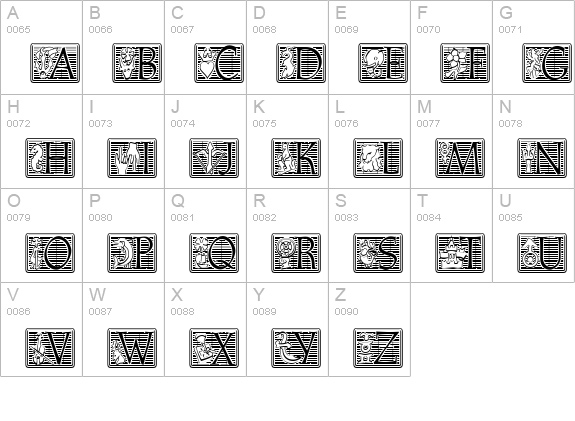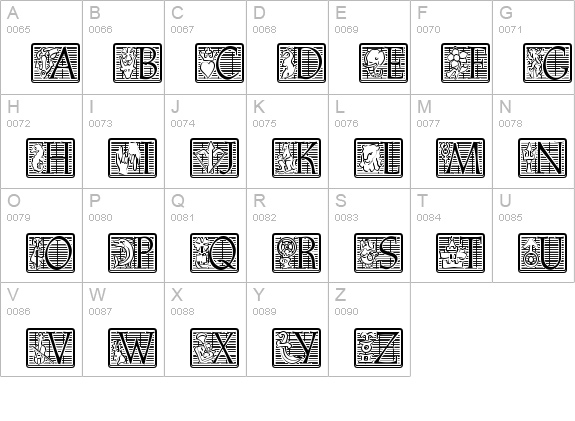
CgAthenaeumInitialPositive Font Details
CgAthenaeumInitialPositive font is a beautifully crafted typeface that exudes elegance and sophistication. With its intricate details and classic design, this font is sure to make a statement in any project. The ornate flourishes and decorative elements of CgAthenaeumInitialPositive font add a touch of luxury and charm to your text. What sets this font apart is not only its timeless appeal but also the fact that it is completely free to download. Yes, you read that right - CgAthenaeumInitialPositive font is freely available at FontsMarket.com for you to use in your personal and commercial projects. Whether you're creating wedding invitations, branding materials, or any other design project, this font is a perfect choice to add a touch of sophistication and class. Don't miss out on the opportunity to elevate your designs with the exquisite CgAthenaeumInitialPositive font - download it for free today at FontsMarket.com and let your creativity shine!